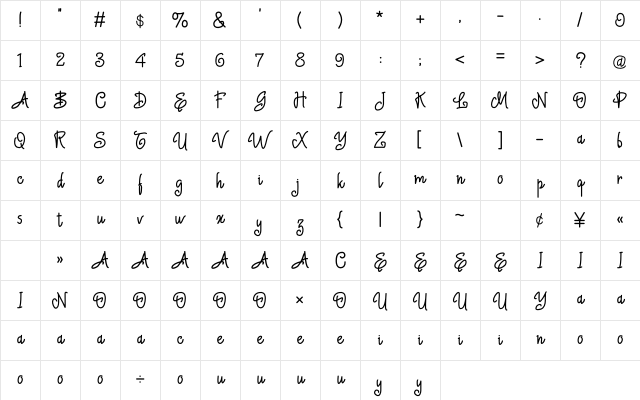
Baby Sophia Regular
Designer: Qara Anass
Design Context for Baby Sophia
Baby Sophia is a composed and adaptable typeface that performs quietly and consistently across a wide range of design contexts.